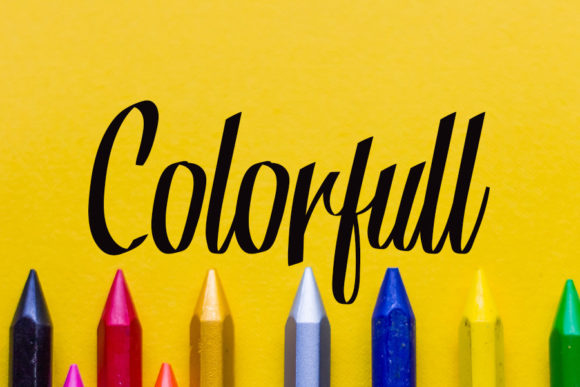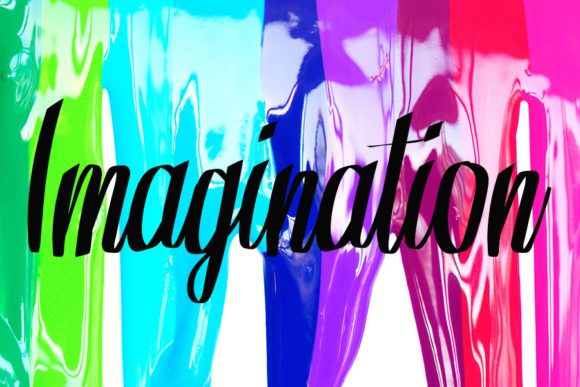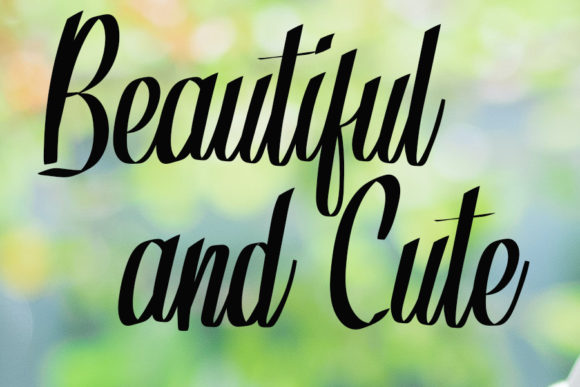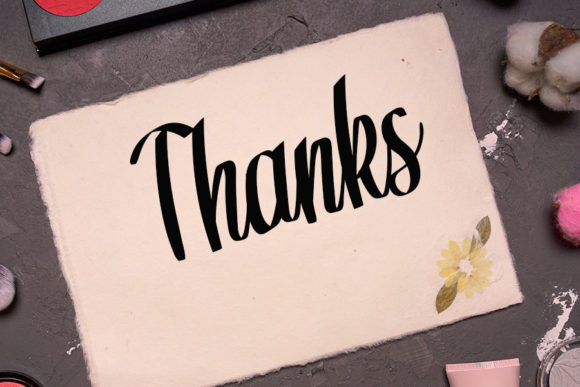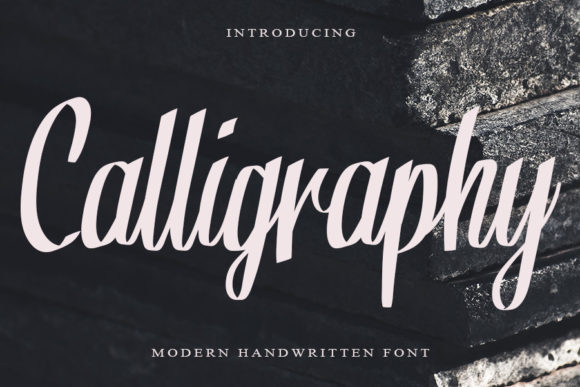
The Calligraphy Font That Stole My Heart
I still remember the design project that led me to fall in love with the Calligraphy font. I was working on a wedding invitation suite, and my client was adamant about having a font that exuded elegance, yet felt modern and fresh. After hours of scouring through font libraries, I stumbled upon Calligraphy, and it was love at first sight! 💕
As I began to work with it, I realized that this casual handwritten font was not only beautiful but also incredibly versatile. It maintained its classy calligraphic influences while feeling contemporary and exciting. I knew right then that I had to share my discovery with fellow designers, crafters, and creative hobbyists.
• ✨ Elegant, flowing lines that give it a sophisticated feel
• 💫 Support for OpenType features, glyphs, and stylistic alternates
• 🎨 Perfect for a wide range of design projects, from wedding stationery to branding and packaging
While Calligraphy is an exceptional font, there are a few minor things to keep in mind:
• ⚠️ Some characters may require manual kerning for optimal spacing
• 🤔 Limited support for non-English languages
The Designer Inspiration Behind Calligraphy
Calligraphy was designed with the intention of creating a font that feels both luxurious and approachable. The designer aimed to capture the elegance of traditional calligraphy while making it accessible for modern design projects. The result is a font that is not only beautiful but also incredibly versatile.
Q: What makes Calligraphy unique?
A: Calligraphy stands out due to its elegant, flowing lines and support for OpenType features, glyphs, and stylistic alternates, making it perfect for a wide range of design projects.
Q: Is Calligraphy suitable for body text?
A: While Calligraphy is highly legible, it’s best suited for headings and titles. For body text, consider using a more traditional sans-serif or serif font.